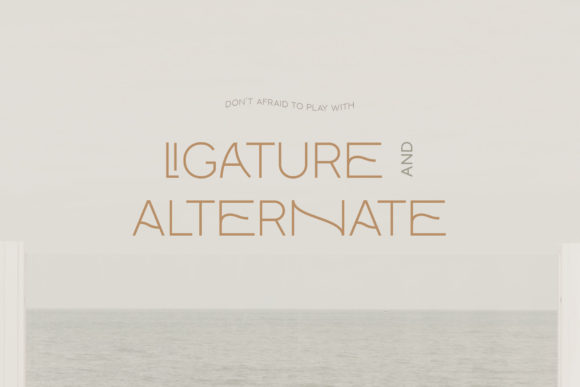
Monocole Font
Monocole is an incredibly unique and elegant sans serif font. Suitable to a wide variety of designs Monocle has the potential to become your favorite go-to font, no matter the occasion!